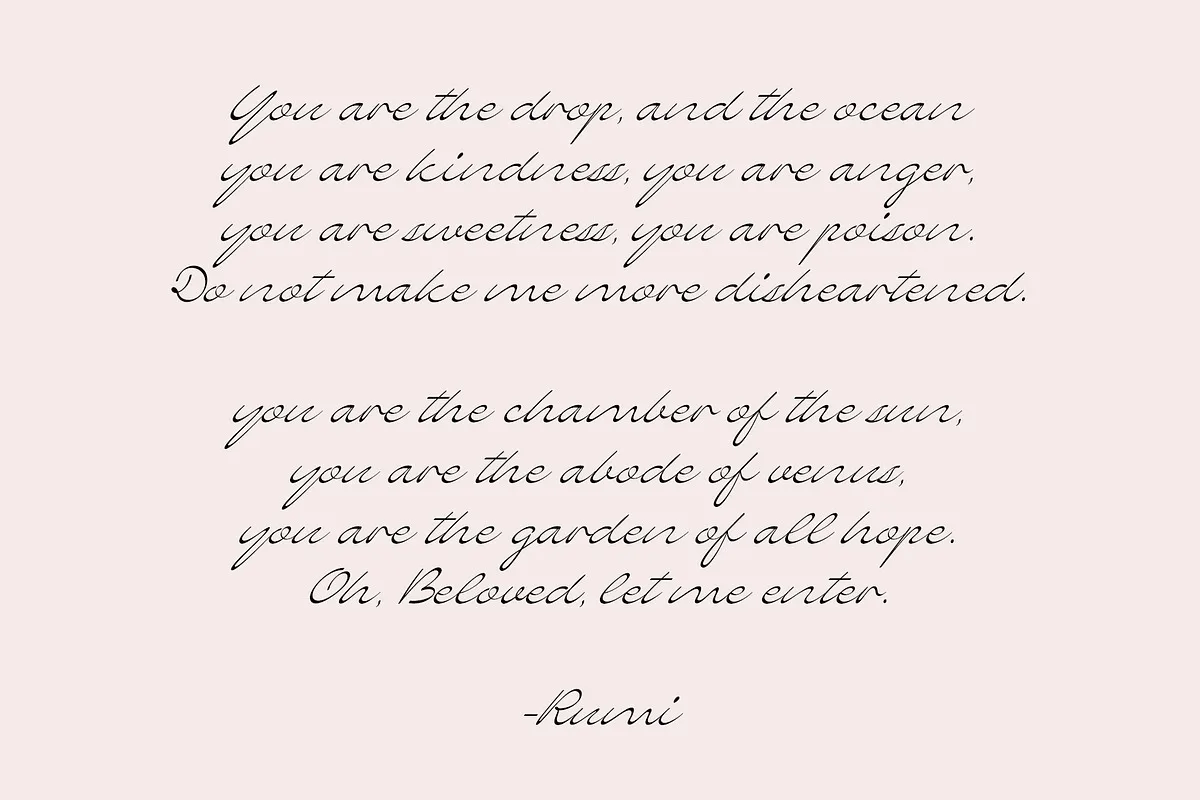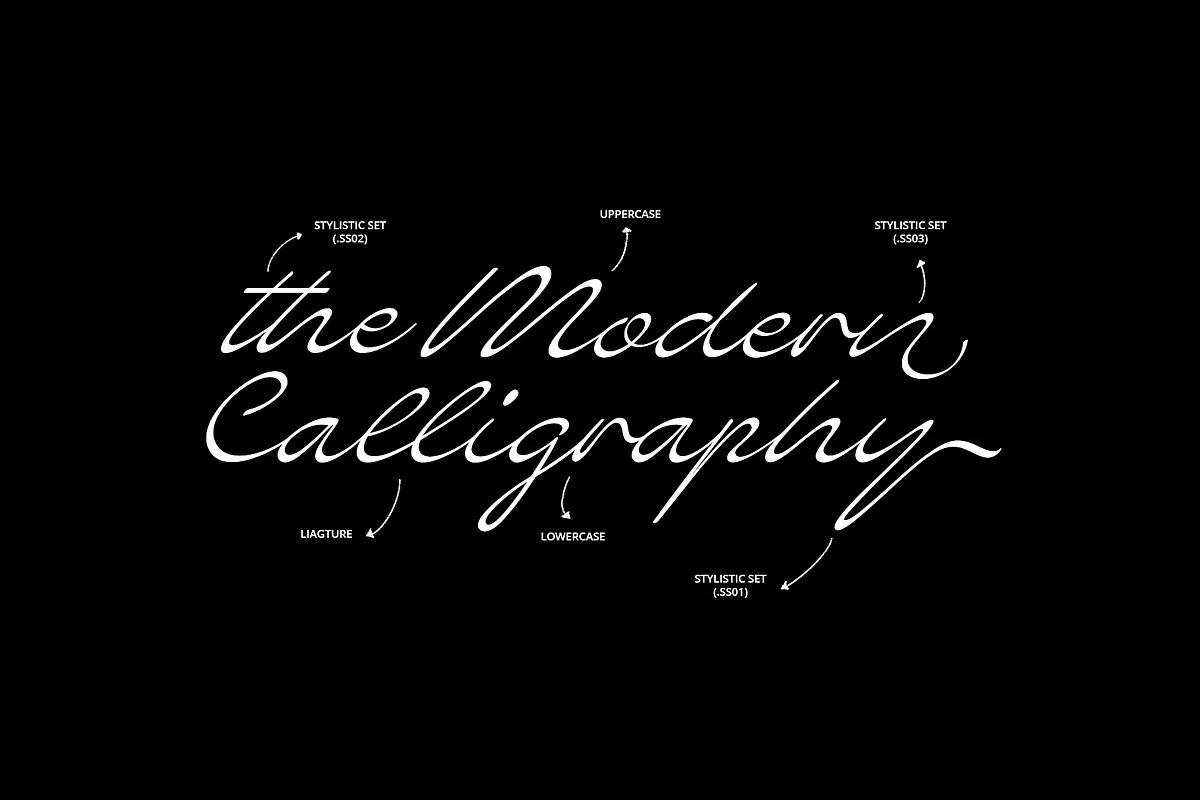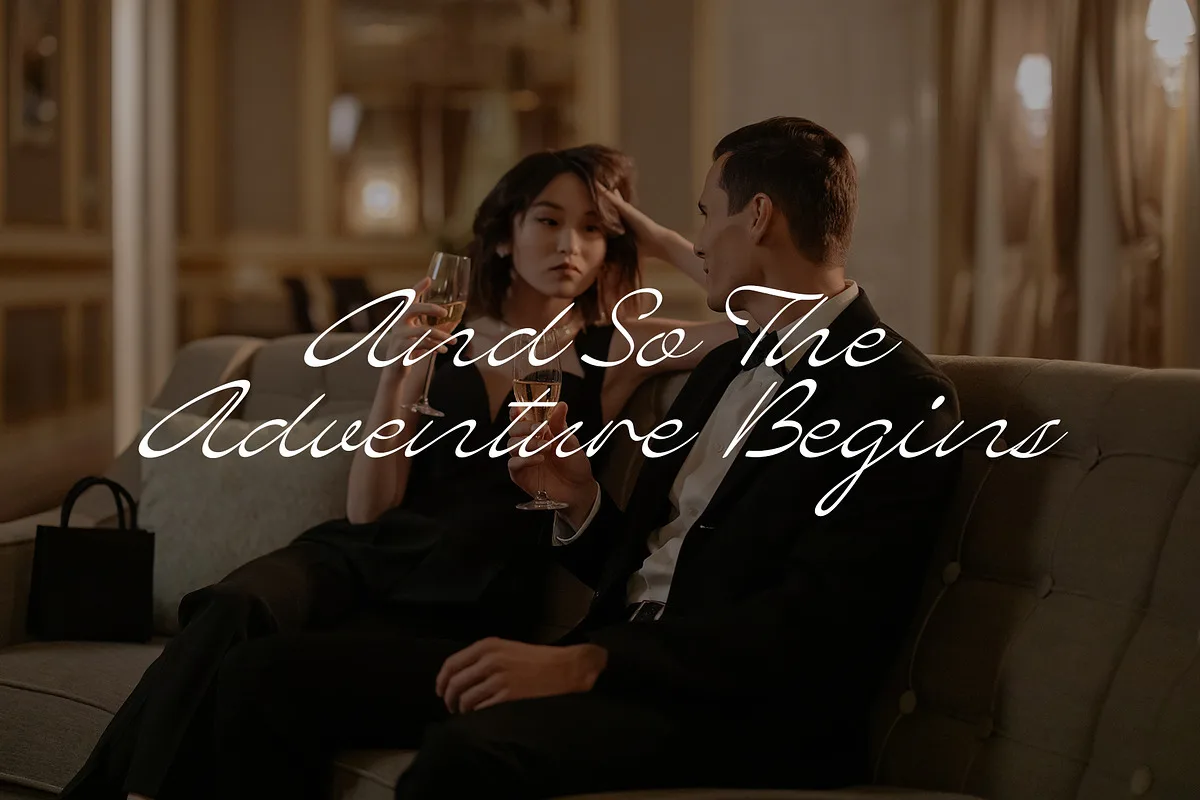
ED Ringroad is a classic modern script font with a handwritten style that makes the appearance of this font look elegant and stylish. This font is also equipped with several features such as stylistic sets, ligatures, and multi-language support. This font is perfect for creative projects such as Logotypes, printed quotes, invitations, cards, product packaging, headers, Letterhead, Apparel, Web design, Magazine, Book, etc.